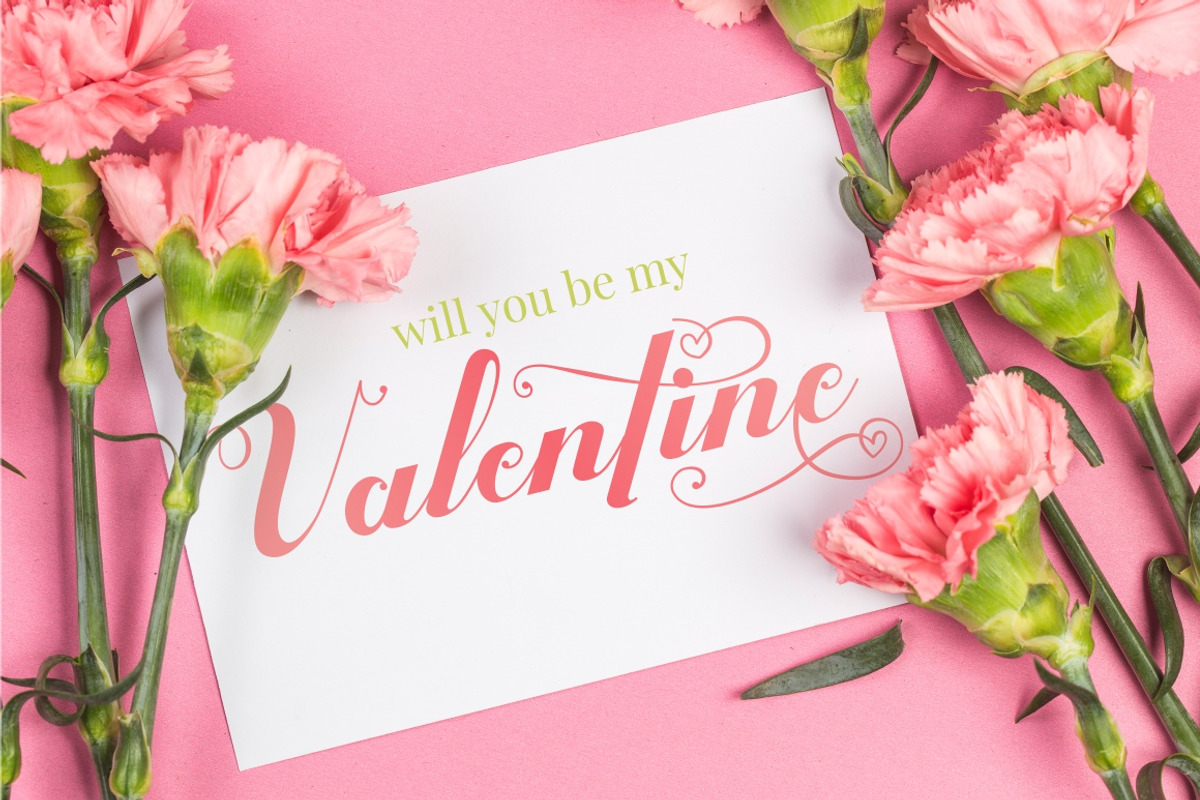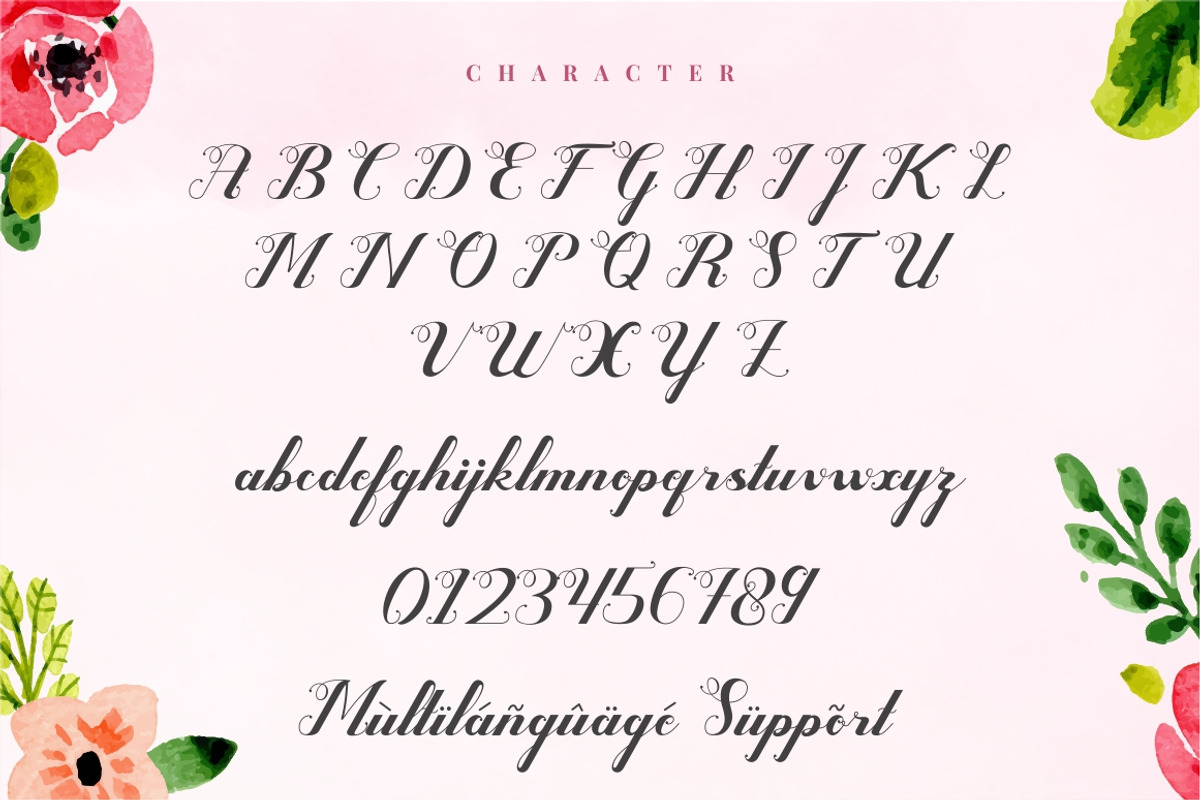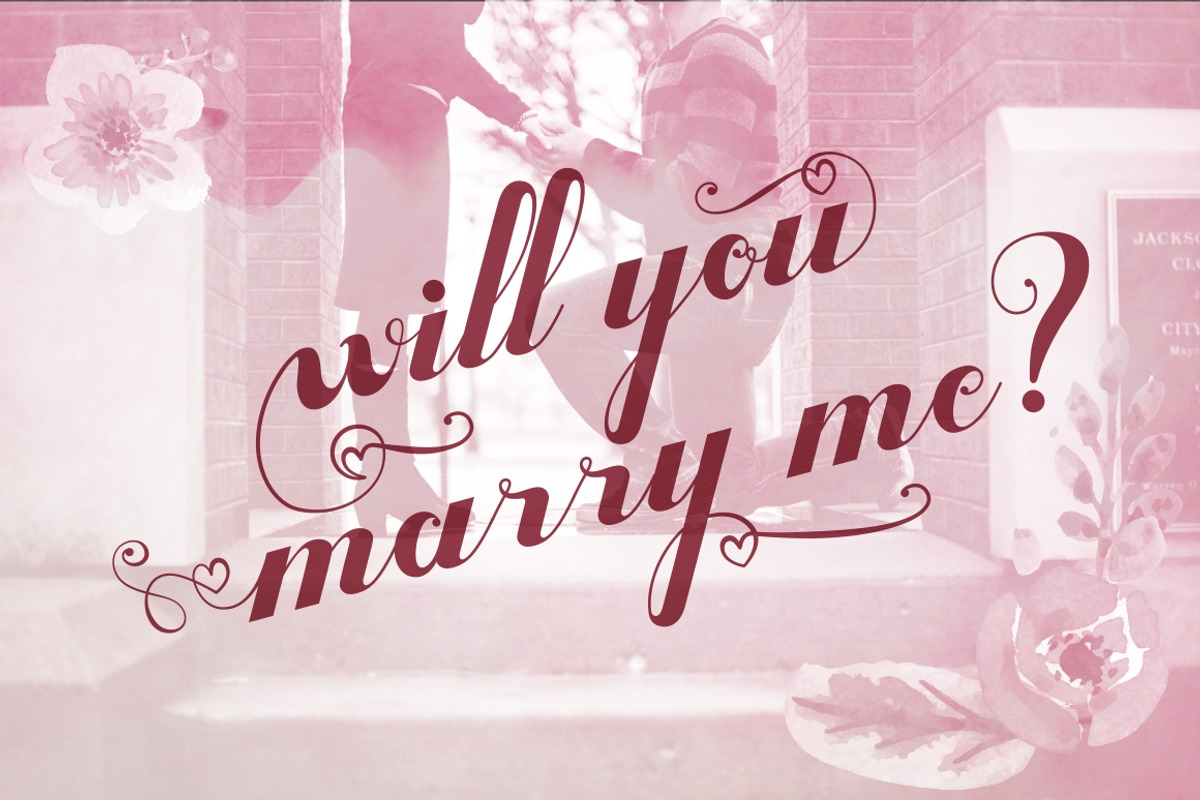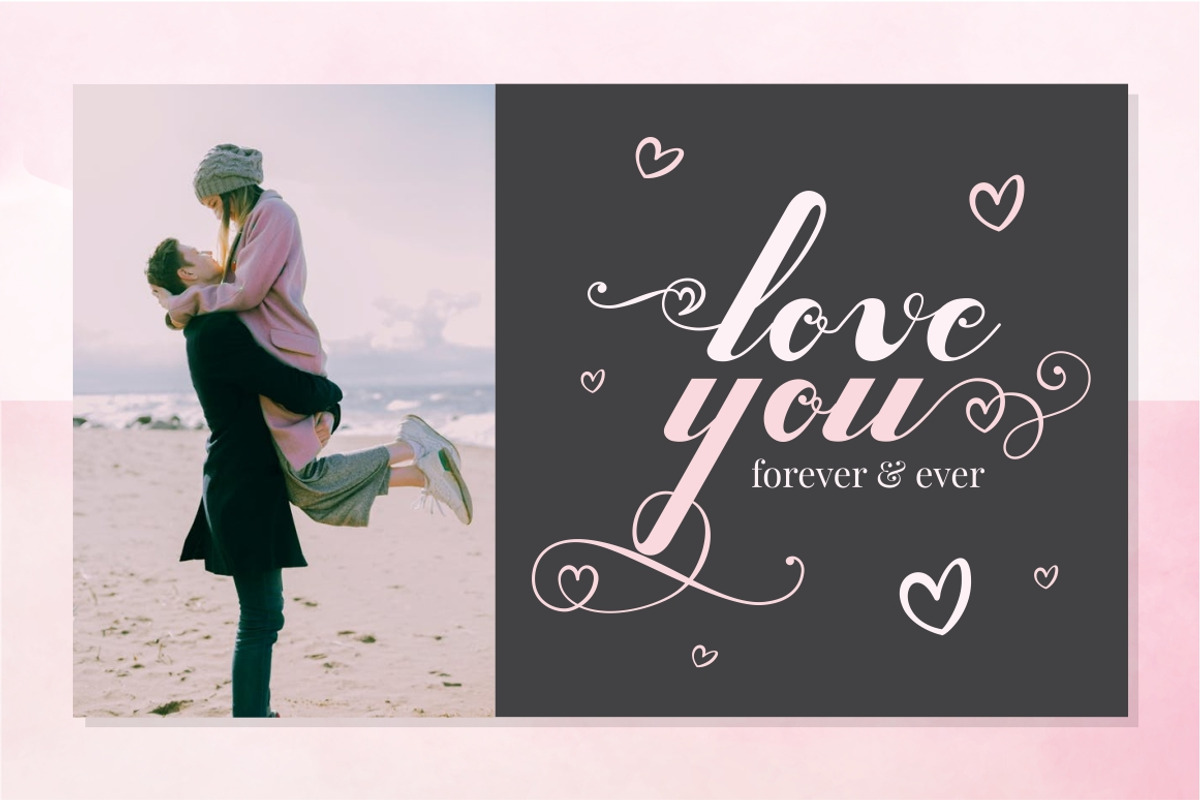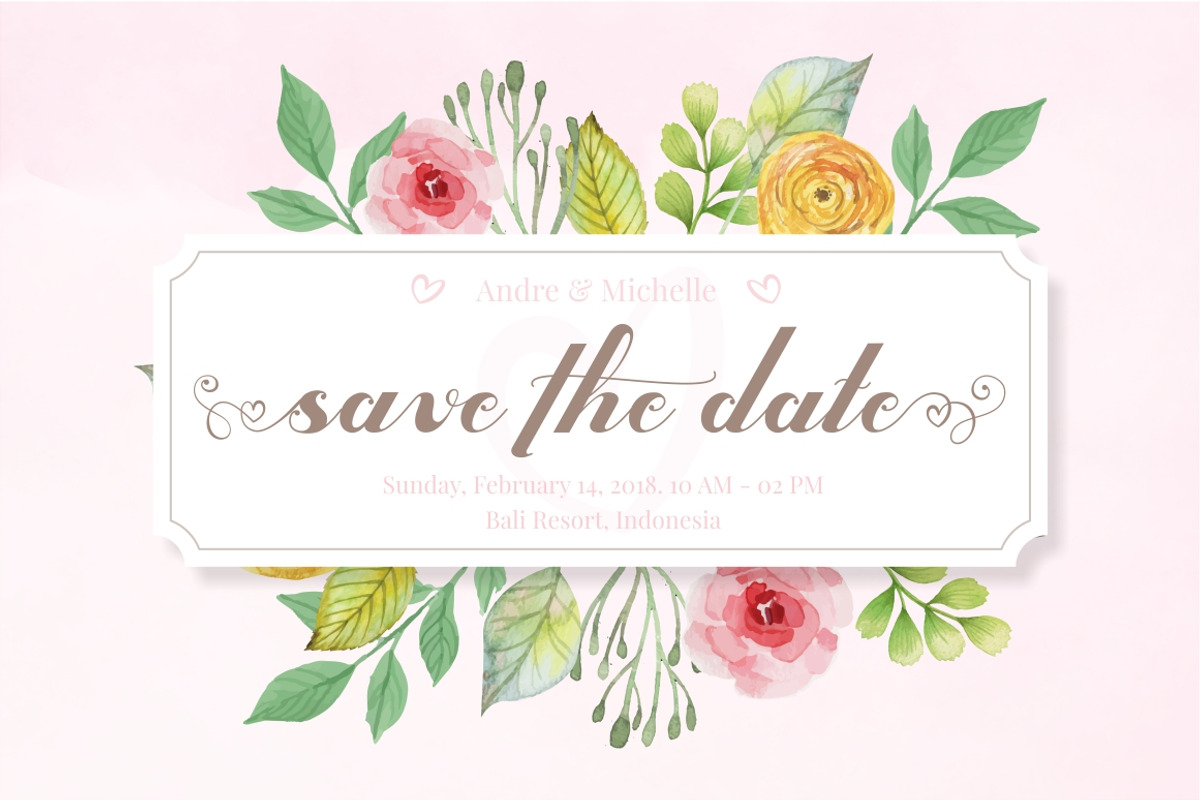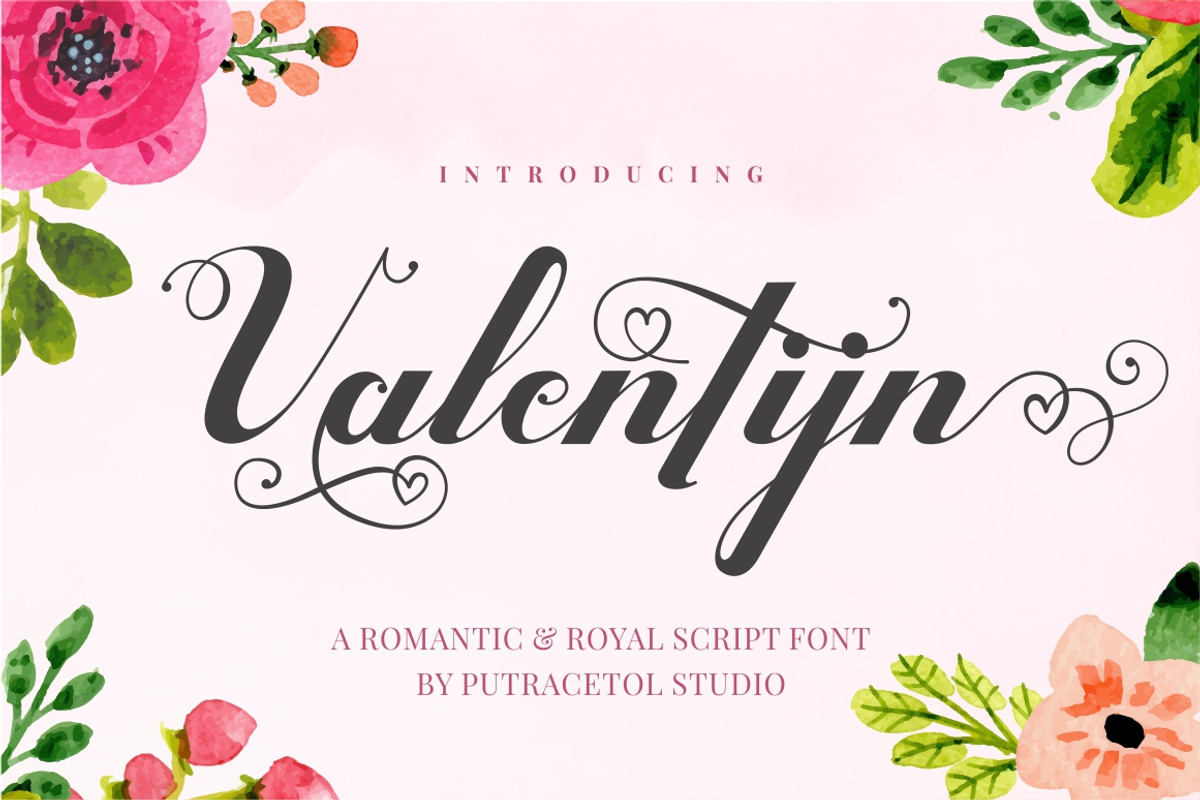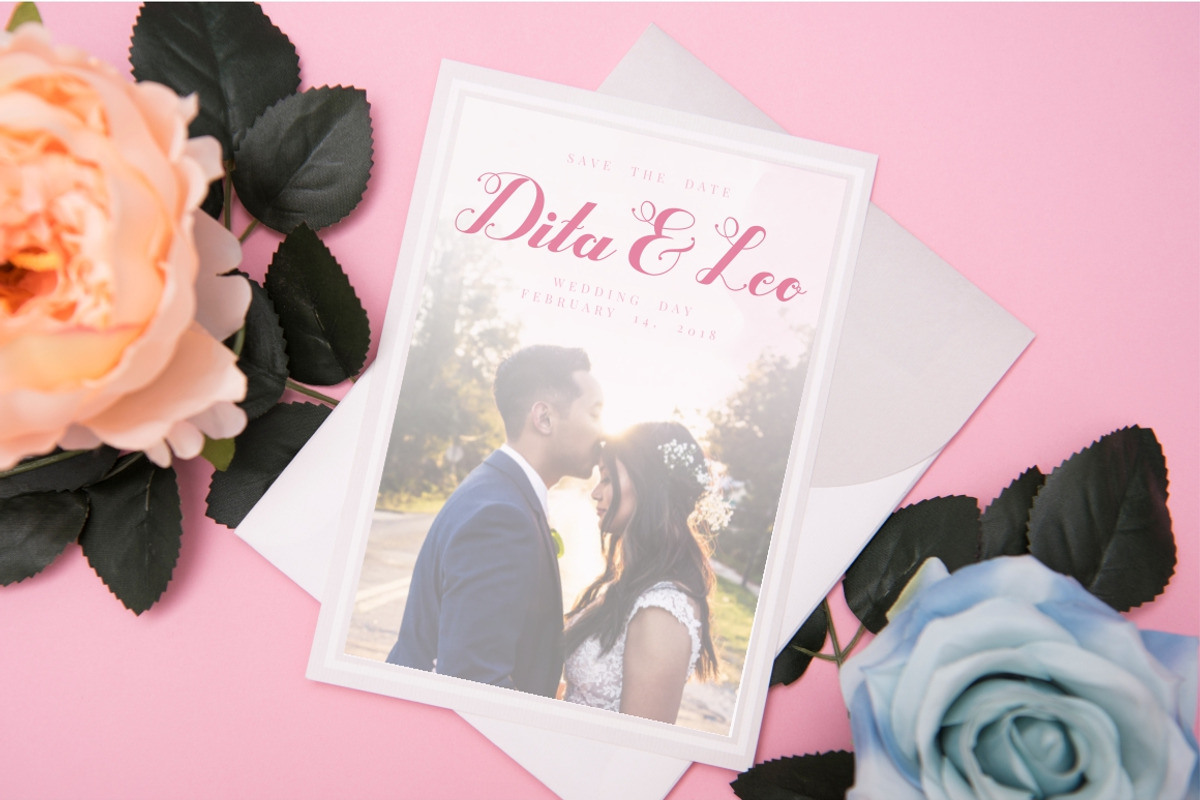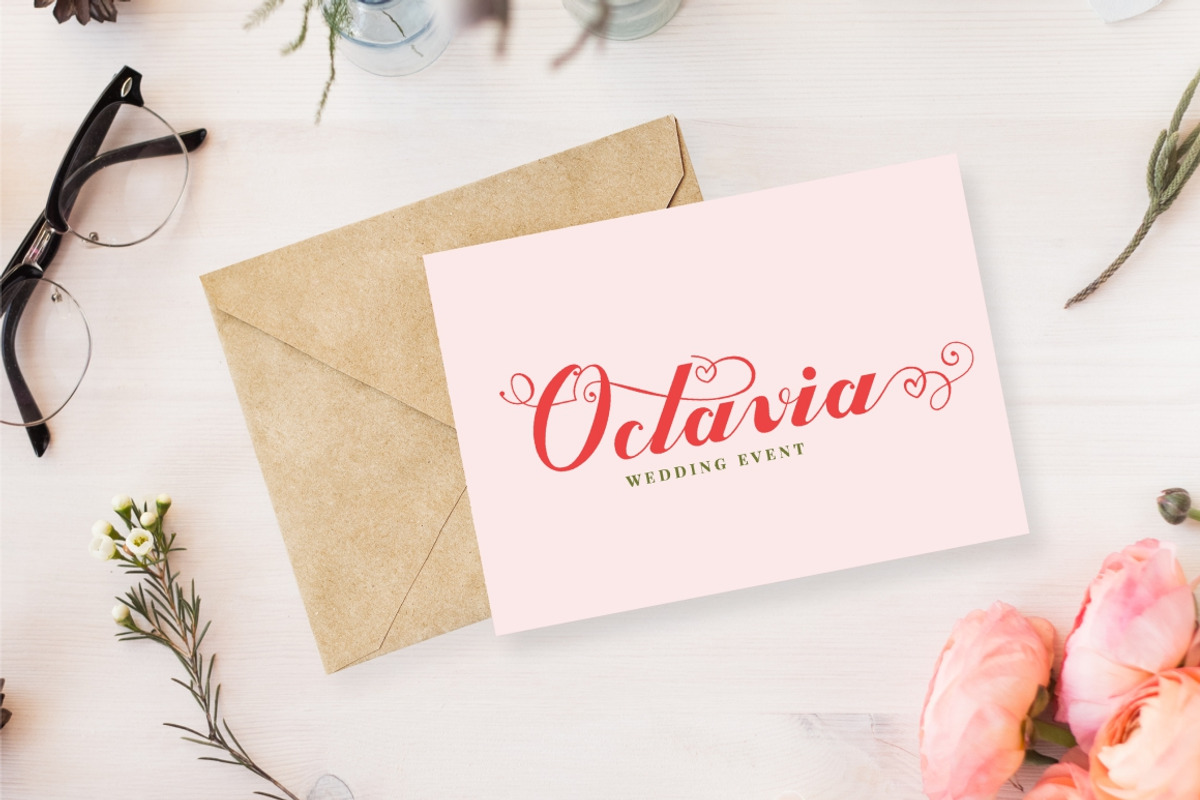
Valentijn - Romantic Font
Introducing a new romantic and royal script font called "Valentijn", a lovely and sweet swirly letter font. Come with open type feature with a lot of alternates and end swash, its help you to make great lettering. Valentijn best uses for heading,cover, poster, logos, quotes, product packaging, header, merchandise, social media & greeting cards and many more. This font is also support multi language. To access the alternate glyphs, you need a program that supports OpenType features such as Adobe Illustrator CS, Adobe Photoshop CC, Adobe Indesign and Corel Draw.
Multilanguage Support.
- Come with open type feature with a lot of alternates and end swash, its help you to make great lettering.
Valentijn - Romantic Font by PutraCetol Studio fits naturally into Branding, posters, packaging, typography.